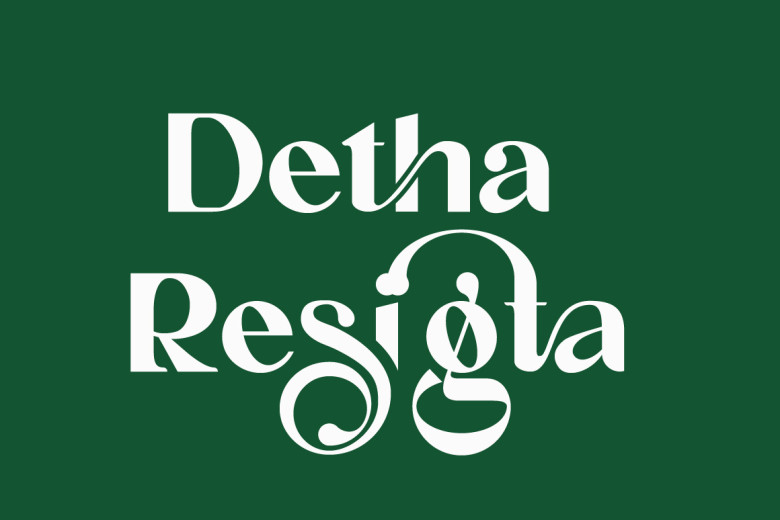
Detha Rasigta Font
Detha Rasigta is a chic and classy slab serif typeface. Perfect for all sorts of designs, this font appears both trendy and charming. Logos, magazines, and social media are among the areas where it works properly. Already been paired and ready to be used for your next project.
Those of you looking for elegance, style, charm, and modernity for your designs, this font was made for you. The font is PUA, which allows it simple access to all of the glyphs and swashes.
Detha Rasigta Slab Serif Font